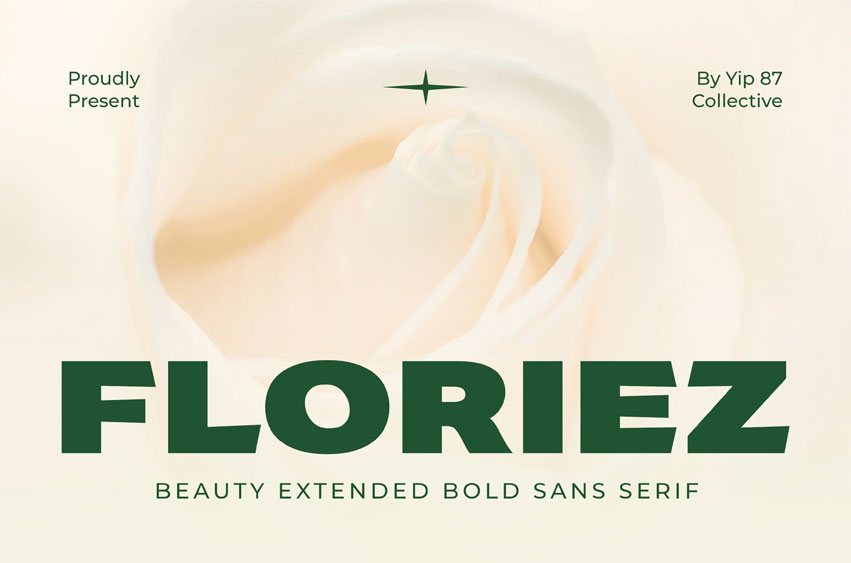
Floriez Font
Floriez Font is a Clean Minimalist Modern Expanded Bold Sans Serif, designed specifically for logos, branding, headers / cafe, perfume, headline, game, music, techno, urban, college, race car and sport branding.
Floriez is impactful and timeless logos and branding materials. Floriez Font ensures your designs make a lasting impression. Elevate your branding design projects with Floriez Font today.